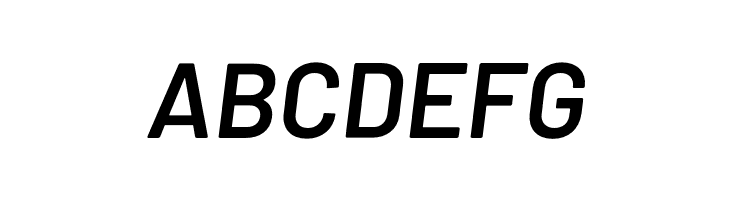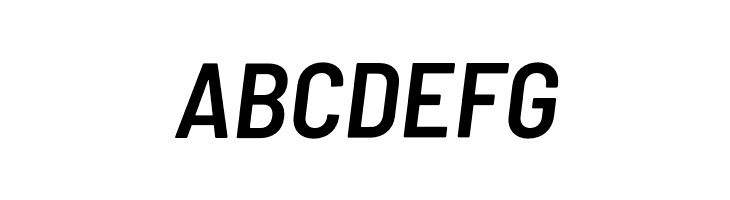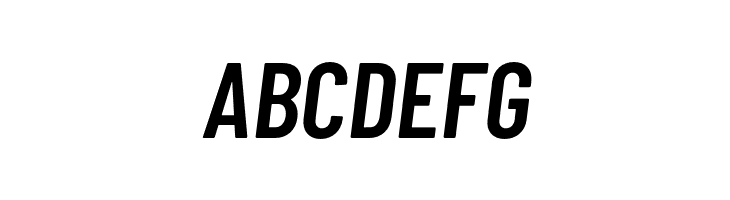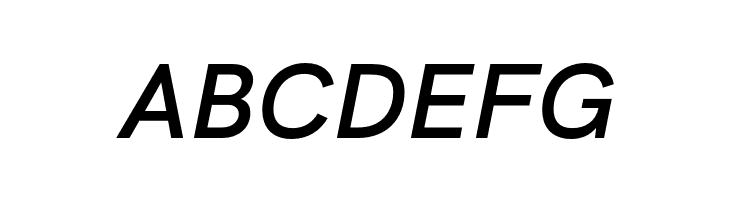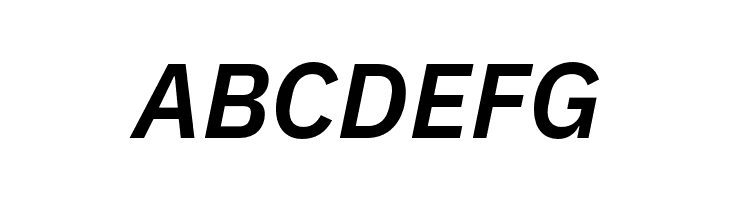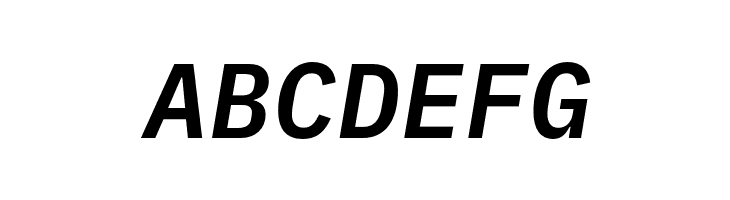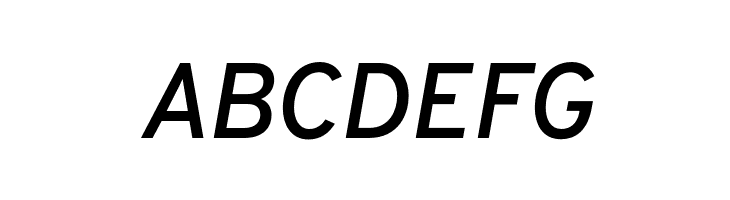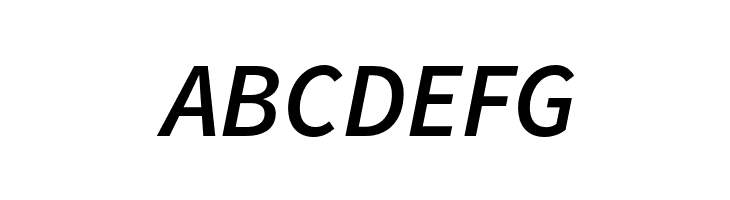
( Fonts by dot colon )
A sleek, semi-bold italic font with a modern and dynamic style.
( Fonts by Tribby )
A modern, semi-bold italic sans-serif font with medium contrast and normal spacing.
( Fonts by Tribby )
A modern, semi-condensed, semi-bold italic font with a clean and dynamic style.
( Fonts by Tribby )
A modern, condensed, semi-bold italic font with clean lines and tight spacing.
( Fonts by Cooper Hewitt Smithsonian Design Museum )
A modern, semi-bold italic sans-serif font with consistent stroke thickness.
( Fonts by Hanken Design Co. )
A modern, semi-bold italic sans-serif font with clean lines and dynamic style.
( Fonts by IBM )
A modern, semi-bold, italic sans-serif font with a clean and geometric design.
( Fonts by IBM )
A semi-bold italic serif font with a modern yet classic style.
( Fonts by IBM )
A modern, monospaced, semi-bold italic font with medium contrast and excellent readability.
( Fonts by Mozilla )
A modern, condensed sans-serif font with semi-bold weight and italic style.
( Fonts by Red Hat )
A modern, italic sans-serif font with a clean and dynamic appearance.
( Fonts by Adobe )
A modern sans-serif font with an italic slant and medium weight.